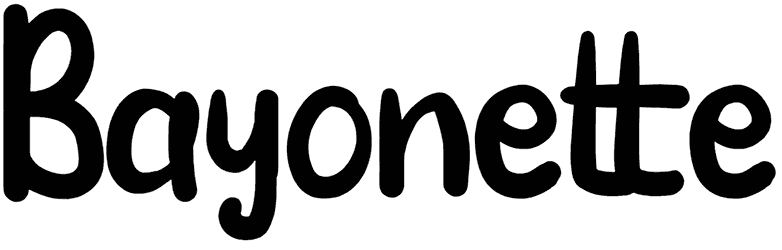
Bayonette Font
Desire a whimsical and delightful mood for your happy design? This will be fun because Bayonette, as a handwritten font, can make it happen. With a hand lettering form and natural outward, this modern item is capable of adorning different projects, namely game screens, comics, party invitations, and other kinds of stuff.
Bayonette Font is a fun and playful handwritten font! This is a Fun and happy font that suitable for Seasonal theme.